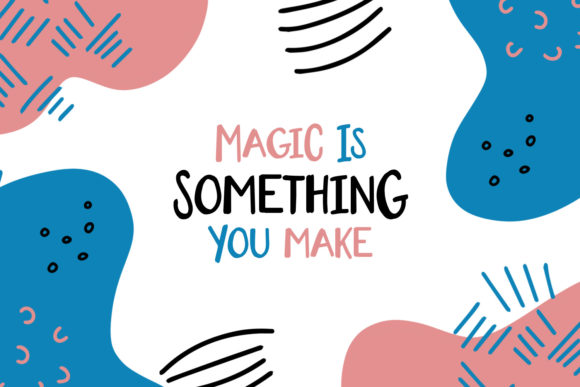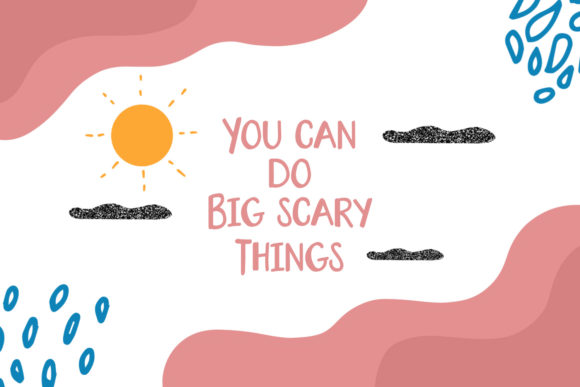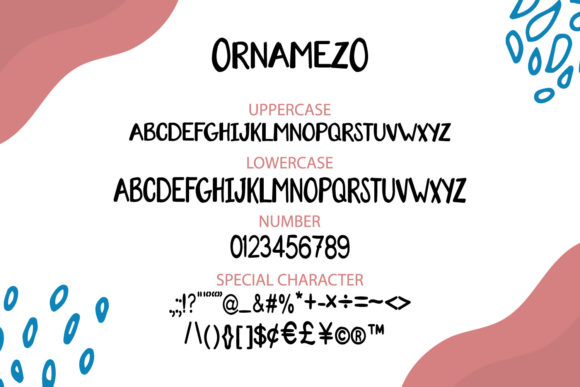
About Ornamezo Font
Ornamezo is a friendly and natural handwritten font. Whether you are using it for cartoon-related designs, children’s games, quotes, titles, brand names, book covers, posters, or just any creation that requires a touch of beauty, this font is a great choice.